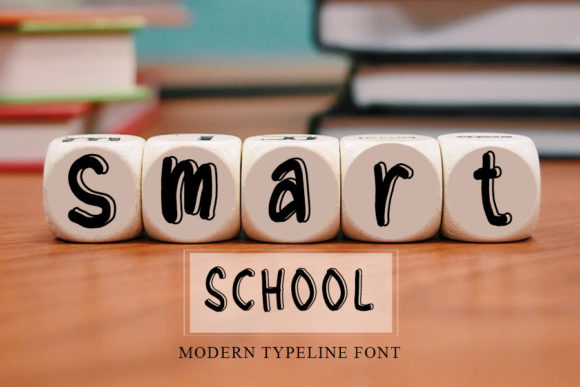
Step into a world of captivating designs with Smart School Font, a modern and minimalist handwritten masterpiece. Crafted by the creative minds at FL Space, this script font exudes a friendly and playful charm, transforming your designs into extraordinary works of art.
Unleash your creativity and let Smart School Font take your designs to new heights. Its impeccable style adds a touch of elegance to any project, whether you're crafting stunning logos, eye-catching social media graphics, or personalized invitations. The possibilities are endless, limited only by your imagination.
With Smart School Font, you'll discover the perfect balance between legibility and artistic flair. Its clean lines and smooth curves ensure that your words are easily read and understood, while its unique character adds a touch of personality to your designs.
Elevate your designs and make a lasting impression with Smart School Font. Its versatile nature makes it suitable for a wide range of projects, from playful branding to sophisticated wedding invitations. Whether you're a seasoned designer or just starting, this font will effortlessly elevate your work to new heights.
Don't settle for ordinary fonts. Choose Smart School Font and unlock the door to extraordinary designs. Experience the joy of creating captivating visuals that resonate with your audience and leave a lasting impression.